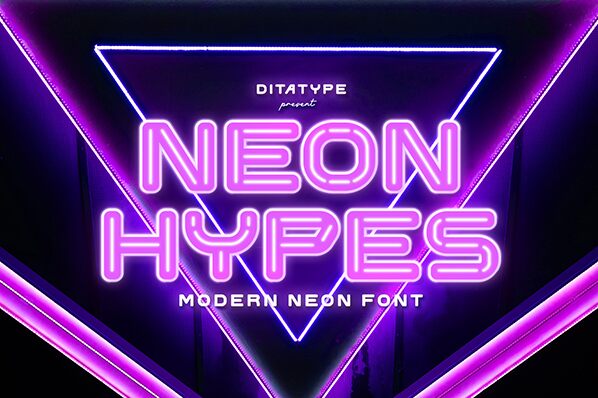
Neon Hypes Inline
Neon Hypes Inline captivates with its striking techno and neon-inspired design, exuding a vibrant yet sophisticated energy. This font’s airy lightness paired with its broad, open form creates a futuristic aesthetic that commands attention while maintaining legibility. The unique inline styling enhances visual impact, making it ideal for eye-catching headlines or branding projects aiming for a modern edge.
Perfect for creative endeavors such as music event promotions, nightlife-themed graphics, or digital applications, Neon Hypes Inline injects dynamism into any design context. Its playful yet refined character ensures it will stand out in both print and digital formats, elevating visual communication to new heights while resonating with contemporary audiences.